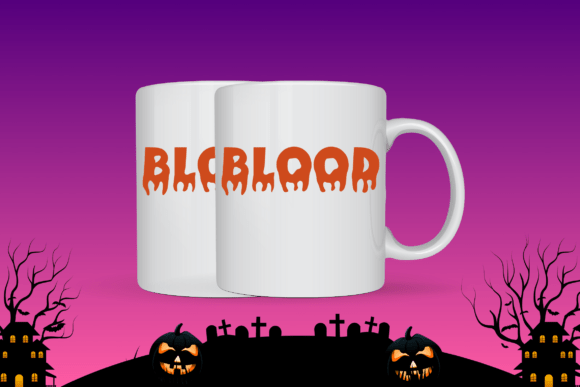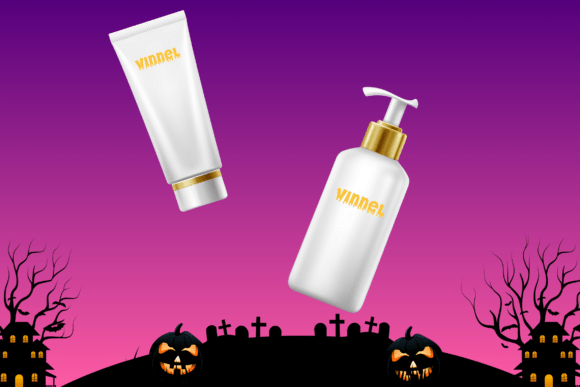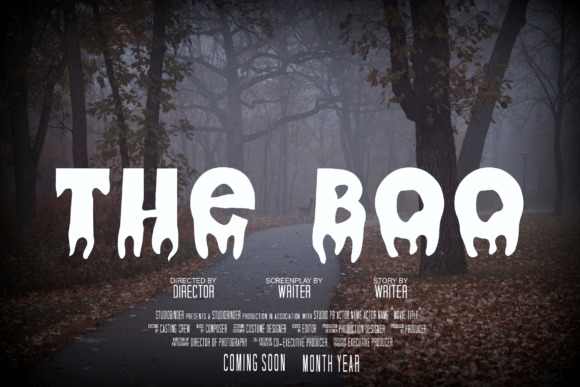
Introduction to Handwriting Blood Font
Do you remember the moment when you stumbled upon a mysterious, cryptic message scrawled on a wall, sending shivers down your spine? The handwriting, though hasty and uneven, seemed to convey a sense of urgency and foreboding. This is exactly the kind of atmosphere the Handwriting Blood Font aims to evoke, making it an invaluable design resource for any creative project.
As a designer, you’re always on the lookout for unique and high-quality fonts that can elevate your work and leave a lasting impression. The Handwriting Blood Font, with its organic rhythm and jagged alphabetistic structures, is the perfect addition to your design arsenal. Whether you’re working on a suspenseful novel cover, a horror film placard, or a crime-related project, this font is sure to bring an undercurrent of fright to your design.
Key Features of Handwriting Blood Font
- Unique Handwriting Style: The Handwriting Blood Font features a distinctive, high-quality handwriting style that is perfect for creative projects and design resources.
- High-Quality Design: The font is designed with high-quality standards in mind, ensuring crisp and clear text output.
- Perfect for Creative Projects: The Handwriting Blood Font is ideal for use in creative projects, such as invitations, posters, and social media graphics, where a unique and personalized touch is desired.
Honest Review: Handwriting Blood Font
As a designer, I’m always on the lookout for high-quality design resources that can elevate my creative projects. Recently, I had the opportunity to work with the Handwriting Blood Font, and I’m excited to share my thoughts.
- The font has a unique, hand-drawn aesthetic that adds a touch of personality to any design.
- The font may not be suitable for all types of projects, particularly those requiring a more formal or professional tone.
Overall, I’m impressed with the Handwriting Blood Font’s potential to add a creative touch to my projects. While it may have some limitations, its unique aesthetic and ease of use make it a valuable resource for designers looking to inject some personality into their designs.
Getting the Most Out of Handwriting Blood Font
To get the most out of the Handwriting Blood Font, experiment with different font sizes, colors, and combinations. This font is highly versatile and can be used in a variety of creative ways.
The Handwriting Blood Font is commonly used in creative projects such as:
- Typography-based art
- Logos and branding